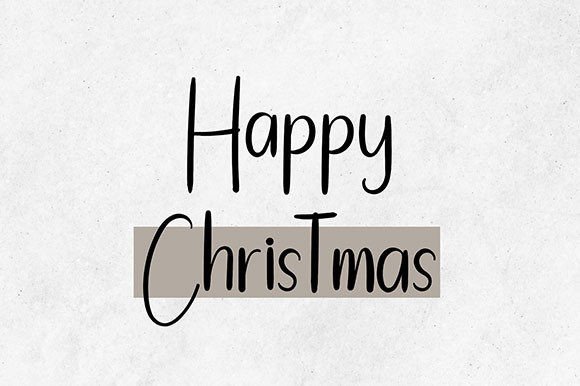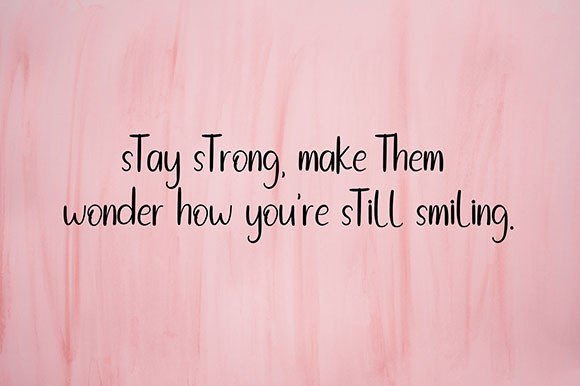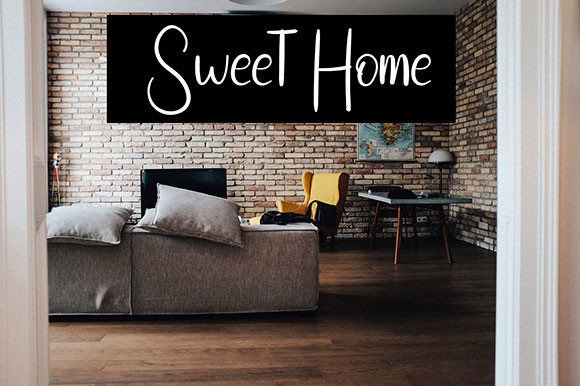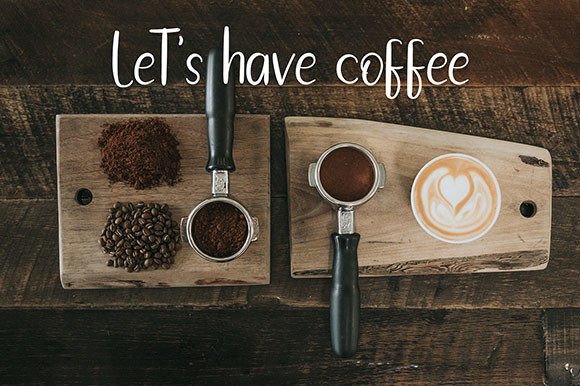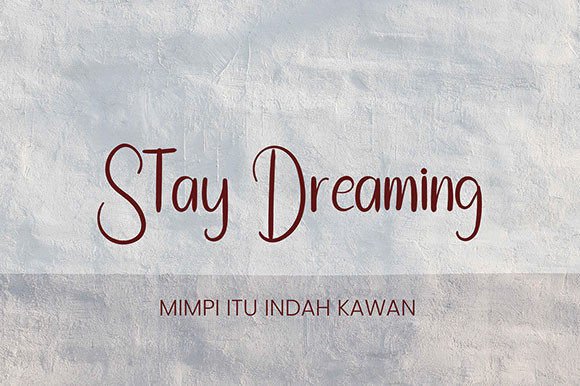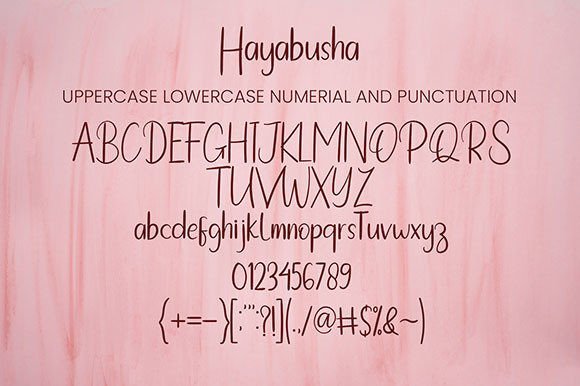
Introducing Hayabusha Font: A Simple yet Elegant Handwritten Font for Creative Projects
Are you a designer or crafter looking for a versatile and stylish font to elevate your creative projects? Look no further than Hayabusha Font, a simple yet elegant handwritten font that’s perfect for a wide range of applications. From quotes and logos to blog headers, posters, ribbons, and more, Hayabusha Font is the ideal choice for anyone seeking a unique and eye-catching typography solution.
What is Hayabusha Font?
Hayabusha Font is a beautiful handwritten font that’s designed to be both simple and sophisticated. Its clean lines, flowing curves, and subtle imperfections give it a charming, organic feel that’s reminiscent of handwritten script. Whether you’re working on a personal project or a professional assignment, Hayabusha Font is sure to add a touch of elegance and personality to your design.
What Can I Use Hayabusha Font For?
Hayabusha Font is an incredibly versatile font that can be used for a wide range of creative projects, including:
- Quotes: Add a touch of inspiration and motivation to your quote designs with Hayabusha Font’s elegant script.
- Logos: Create a unique and memorable logo for your brand or business with Hayabusha Font’s distinctive style.
- Blog Headers: Elevate your blog’s typography with Hayabusha Font’s clean and sophisticated design.
- Posters: Create eye-catching posters for events, promotions, or advertising campaigns with Hayabusha Font’s bold and stylish script.
- Ribbons: Add a touch of elegance to your ribbon designs for weddings, parties, or other special occasions.
- Fashion and Clothing: Use Hayabusha Font to create stylish and eye-catching labels, tags, or branding for your fashion or clothing designs.
- Letters and Invitations: Add a personal touch to your letters, invitations, or stationery with Hayabusha Font’s beautiful handwritten script.
- Stationery: Create custom stationery, including notebooks, journals, or greeting cards, with Hayabusha Font’s elegant typography.
Why Choose Hayabusha Font?
So, why should you choose Hayabusha Font for your creative projects? Here are just a few reasons:
- Unique and Eye-Catching: Hayabusha Font’s distinctive style is sure to grab attention and set your design apart from the crowd.
- Versatile: With its wide range of applications, Hayabusha Font is an excellent choice for designers and crafters who work on various projects.
- Elegant and Sophisticated: Hayabusha Font’s clean lines and flowing curves give it an air of elegance and sophistication that’s perfect for high-end designs.
- Easy to Read: Despite its elegant style, Hayabusha Font is easy to read, making it an excellent choice for body text or longer designs.
Tips for Using Hayabusha Font
To get the most out of Hayabusha Font, here are a few tips to keep in mind:
- Experiment with Sizes: Hayabusha Font looks great in a variety of sizes, from large headings to smaller body text.
- Play with Colors: Try pairing Hayabusha Font with different colors to create unique and eye-catching designs.
- Mix and Match: Combine Hayabusha Font with other fonts or design elements to create a truly unique look.
Hayabusha Font is a simple yet elegant handwritten font that’s perfect for designers and crafters looking to add a touch of sophistication and personality to their creative projects. With its wide range of applications, unique style, and ease of use, Hayabusha Font is an excellent choice for anyone seeking a high-quality typography solution. So why wait? Download Hayabusha Font today and start elevating your designs to the next level!